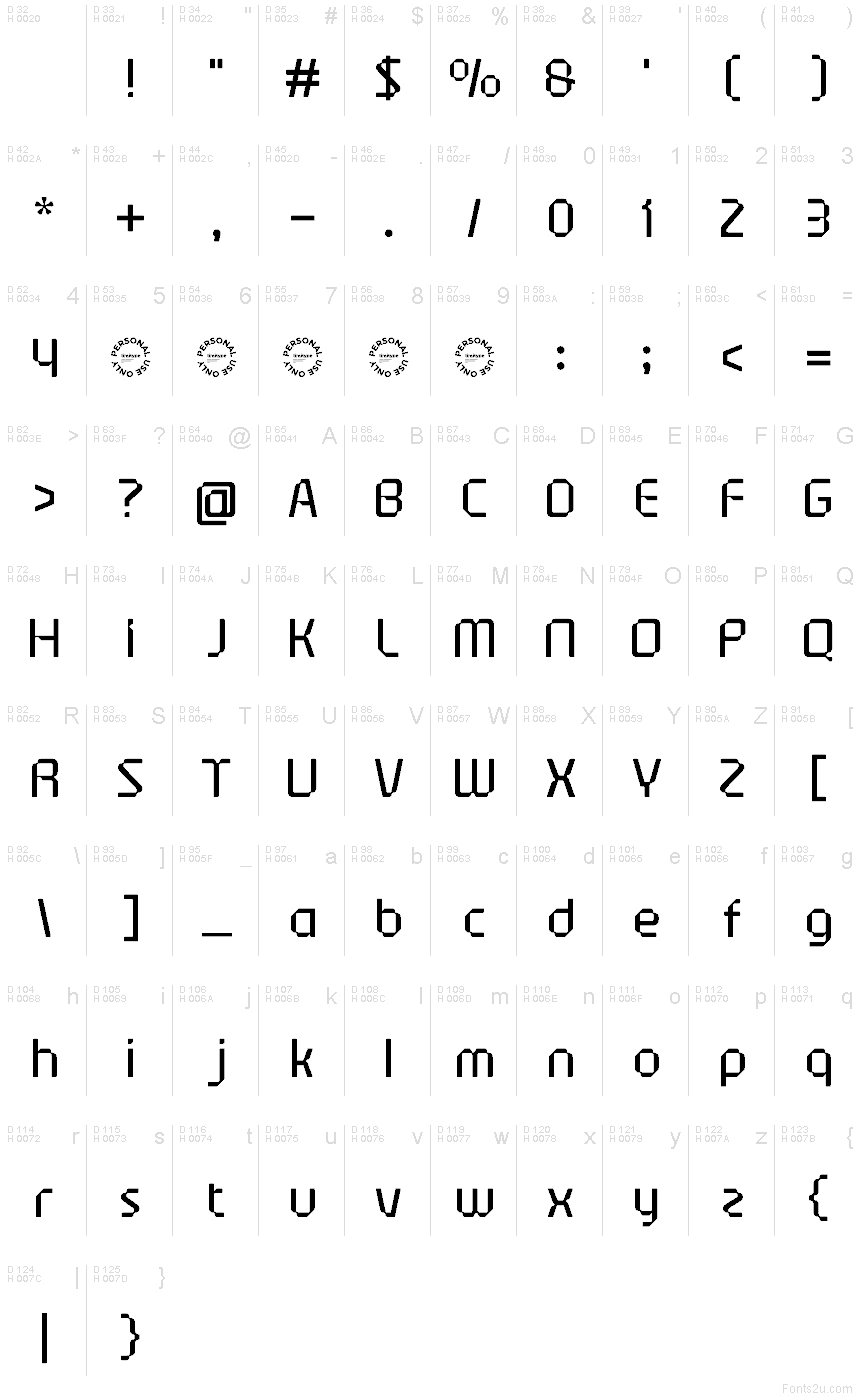
Seona DEMO
Seona font by Limitype is a futuristic display font with a modern aesthetic, digital influences, and geometric shapes. This one evokes tech-oriented ideas and minimal styles that could bring the best out of your type projects. The modeling of the letters is absolutely impressive both in lowercase and uppercase with all curves carefully constructed.
Some possible uses are typography posters, social media graphics, branding projects, packaging designs, magazines, music album covers, movie covers/titles, websites interfaces (UI & UX), applications interfaces (UI & UX), and advertisements. However you decide to use this free font it will serve to add an extra unique character while maintaining legibility at all sizes.